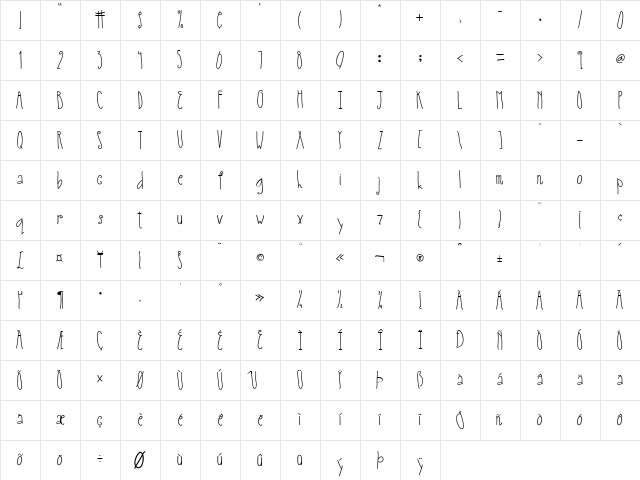
Austie Bost Small World Regular Free Font
Austie Bost Small World Regular
Foundry: Austie Bost Fonts
Designer: Austin Owens
Design Context for Austie Bost Small World
Austie Bost Small World is a composed and adaptable typeface that performs quietly and consistently across a wide range of design contexts.